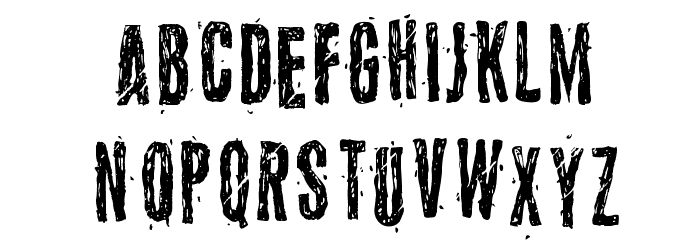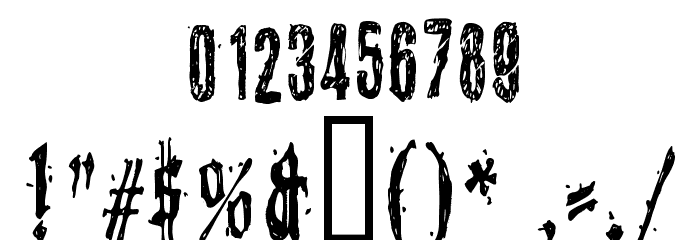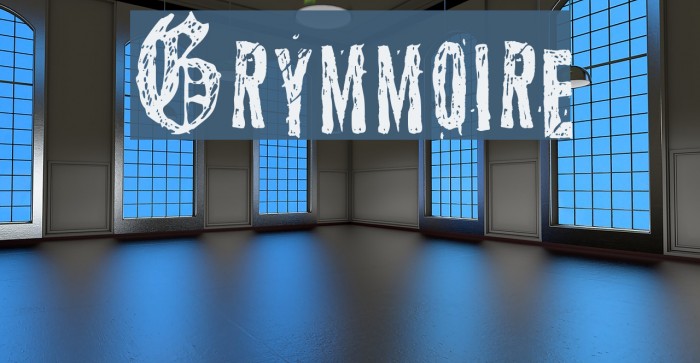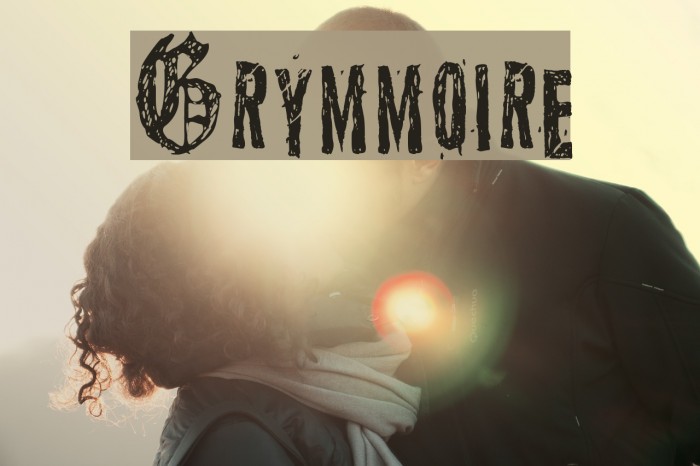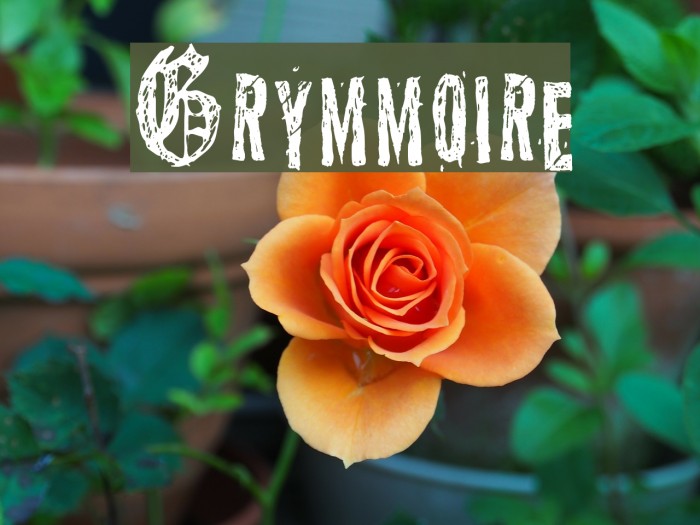
Grymmoire Font
This font features a bold and dramatic style, reminiscent of Gothic or medieval script. The uppercase letters are ornate, with intricate detailing and flourishes that give them a historical and mysterious appearance. The lowercase letters maintain the same decorative quality, ensuring consistency across the typeface. The numbers and special characters are equally stylized, making this font ideal for projects that require a touch of antiquity or fantasy. The overall design is highly decorative, with a strong emphasis on visual impact.
A bold, Gothic-inspired font with ornate detailing and a dramatic flair.
- Proposed Projects: Ideal for fantasy book covers, historical themed posters, or any design needing a medieval touch.